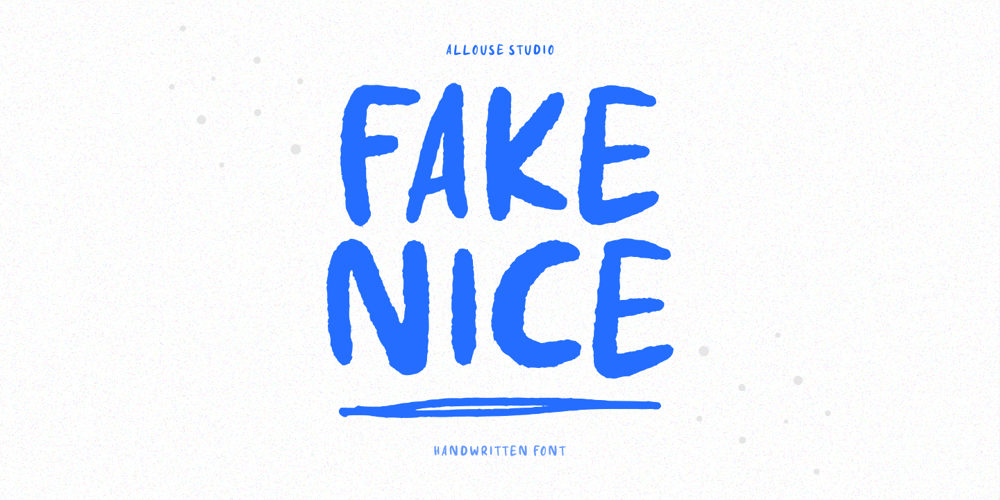
Fake Nice Font Family was designed by Fachrizal Yusuf and published by Allouse Studio. Fake Nice contains 1 styles and family package options. Proudly Present, Fake Nice a Handwritten Font which will give you an abstract impression with rough detailed brush.Fake Nice come along with Multi-Lingual Support to fulfill your need.We highly recommend using a program that supports OpenType features and Glyphs panels like many of Adobe apps and Corel Draw, so you can see and access all Glyph variations.Fake Nice is perfect for any tittle, logo, product packaging, branding project, megazine, social media, wedding, or just used to express words above the background.Enjoy the font, feel free to comment or feedback, send me PM or email. Thank You!